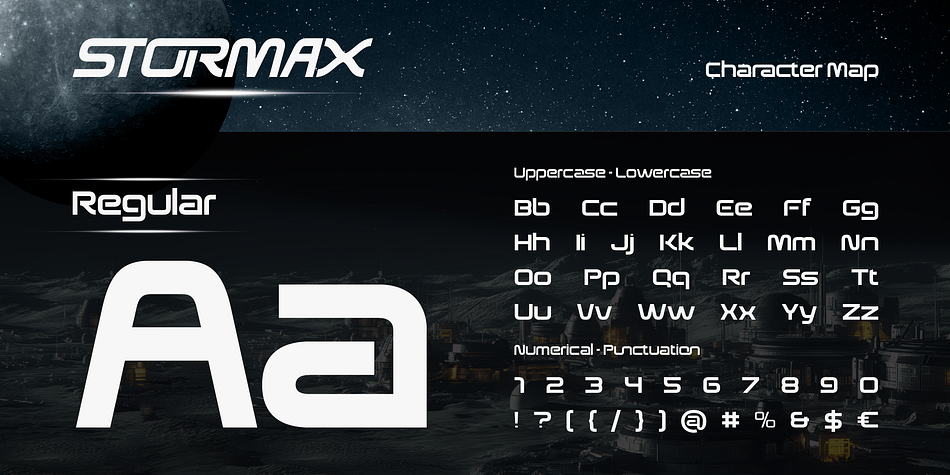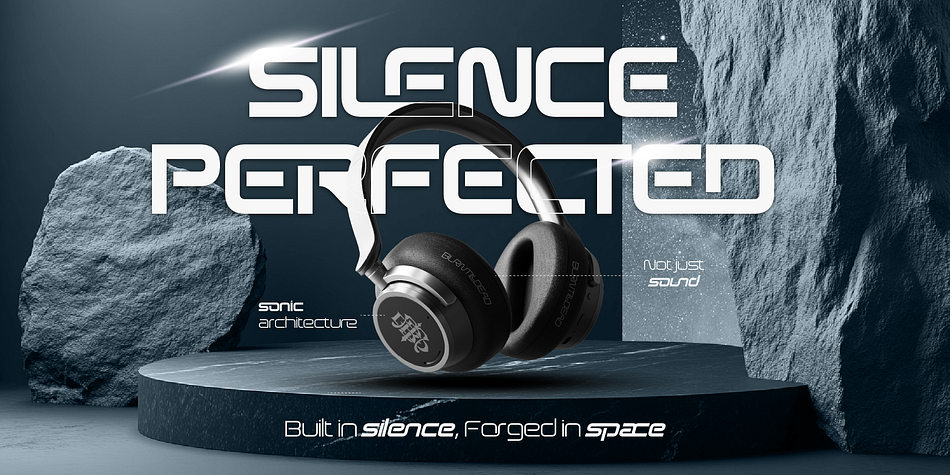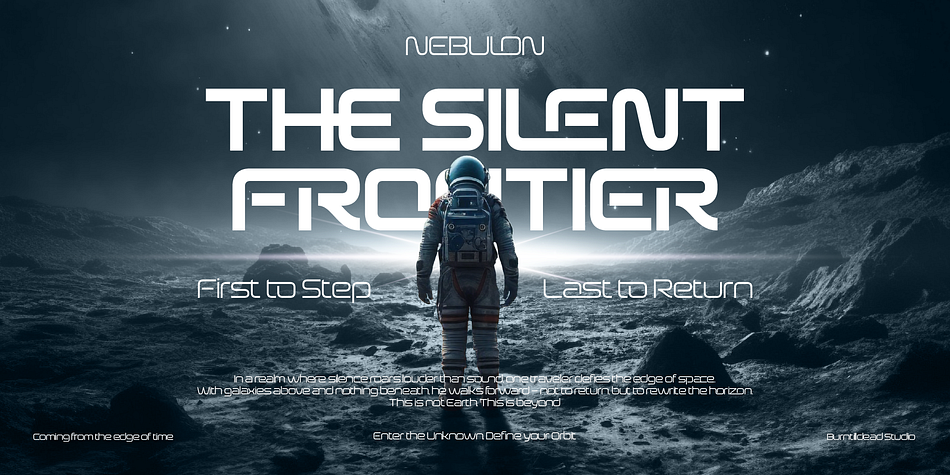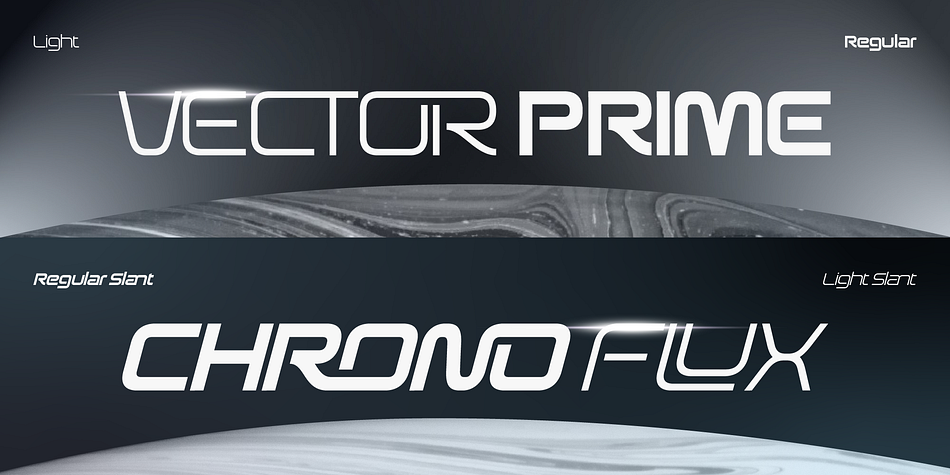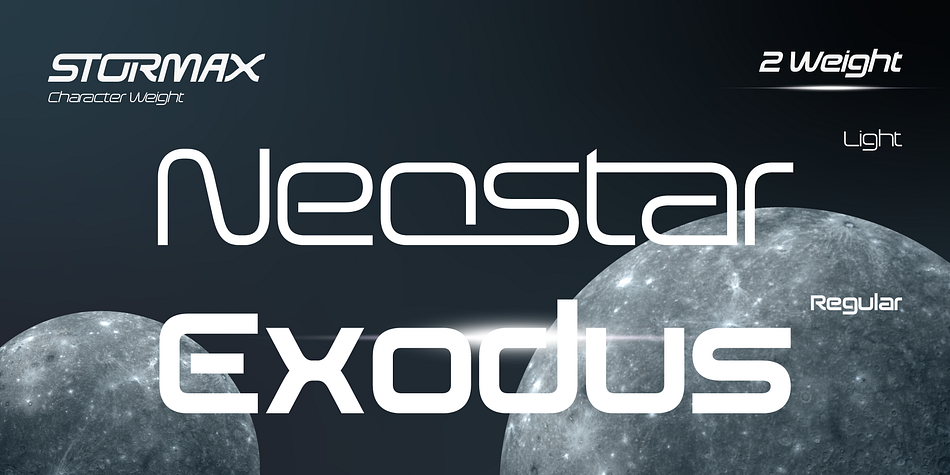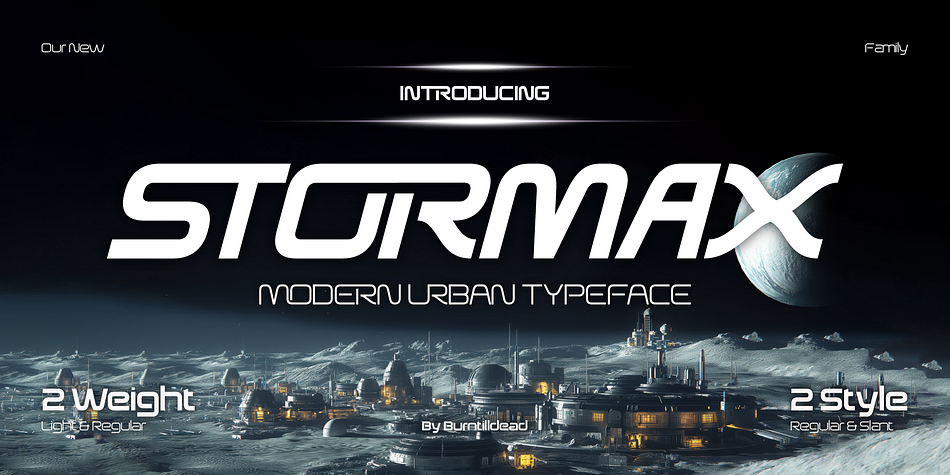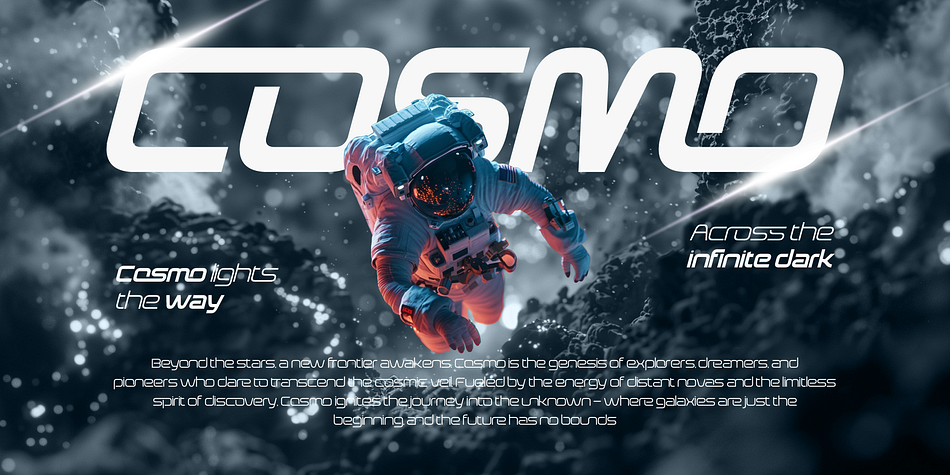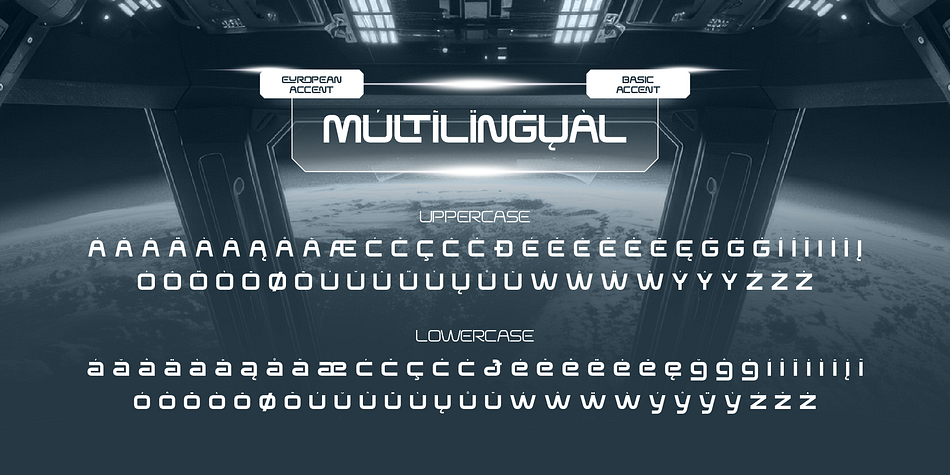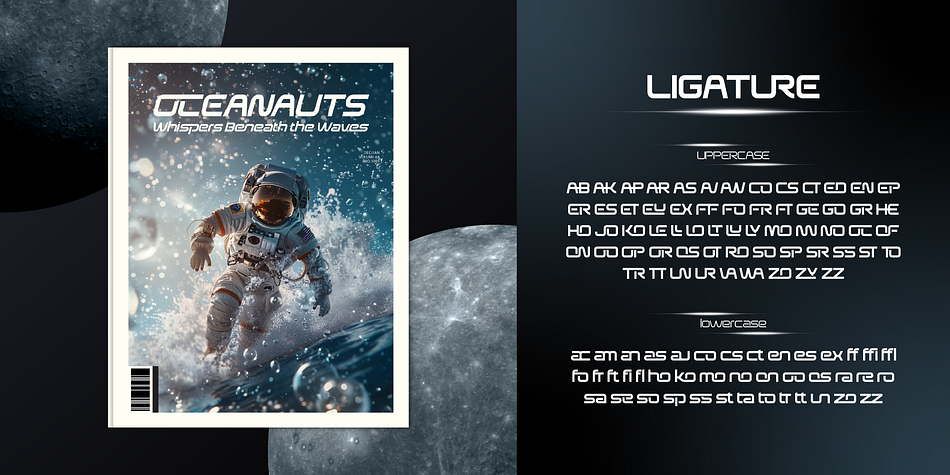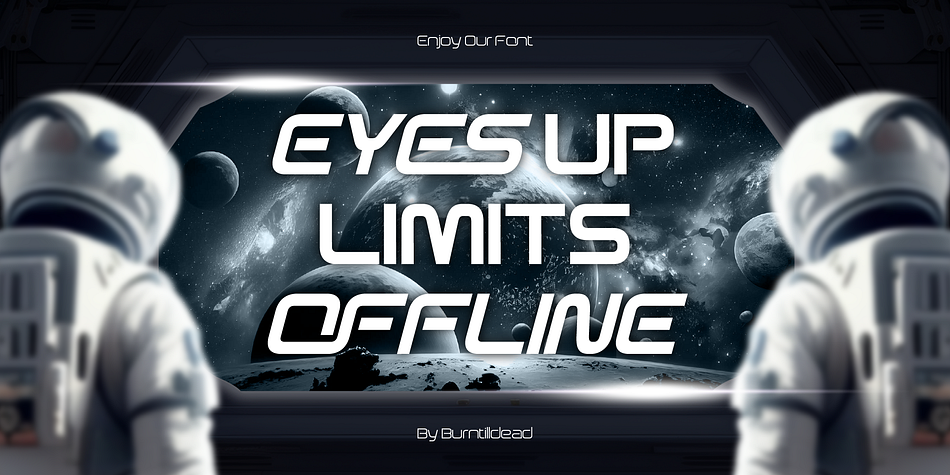
Stormax
Designed by Eric Kurniawan, Stormax is a sans serif font family. This typeface has four styles and was published by Burntilldead.
Stormax takes you to the future, a bold sans serif typeface with high tech and futuristic aesthetics. Featuring 4 Styles: regular, slant, light and light slant. Stormax offers the flexibility dan dynamic options for any design. With its powerful alternates dan ligatures. this font is crafted for creators who dare to push boundaries, perfect for sci-fi poster, space theme branding, innovative tech startup, gaming interfaces and beyond.